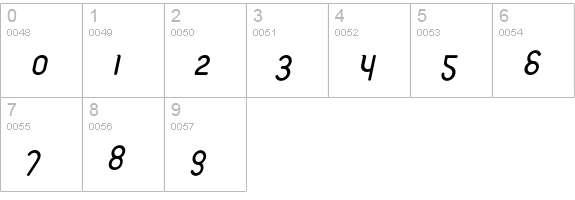
TableManners-Italic Font Details
TableManners-Italic is a distinctive, italic variant in the TableManners typeface family \xE2\x80\x94 well suited to design and typography projects.
TableManners-Italic font is a sleek and sophisticated typeface that exudes elegance and style. Its italicized design adds a touch of flair and grace to any project or design. This font is perfect for creating eye-catching headings, titles, and logos that demand attention. With its clean lines and smooth curves, TableManners-Italic font is a versatile choice for both digital and print applications. Whether you're designing a website, creating a magazine layout, or crafting a beautiful invitation, this font will bring a touch of sophistication to your work. What sets TableManners-Italic font apart is not only its impeccable design but also the fact that it is freely available to download at FontsMarket.com. This means that you can elevate your designs without breaking the bank. The accessibility of this font makes it a valuable asset for designers, students, and anyone looking to add a professional touch to their projects. TableManners-Italic font is designed with legibility in mind, ensuring that your text is clear and easy to read, even at smaller sizes. Its elegant and refined style is perfect for adding a touch of luxury to wedding invitations, event posters, and high-end branding projects. Whether you're a professional designer or a casual enthusiast, TableManners-Italic font offers a world of possibilities. Its timeless appeal and versatility make it suitable for a wide range of projects, from corporate presentations to personal creative endeavors. Download TableManners-Italic font for free at FontsMarket.com and unlock the potential to create stunning designs that leave a lasting impression. Don't miss out on this opportunity to elevate your work and showcase your creativity with a font that combines elegance and accessibility.